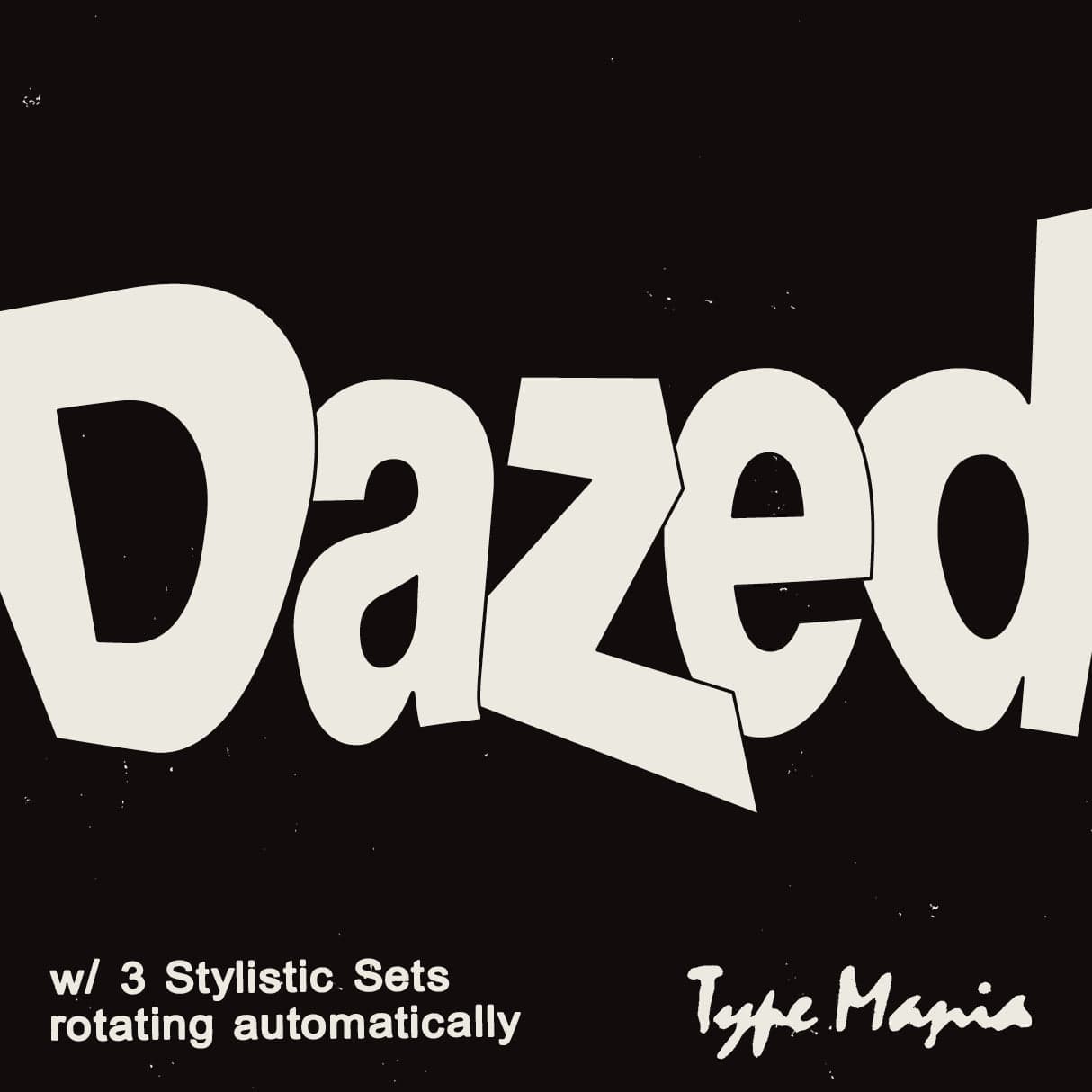
<p><strong>Dazed TM</strong> bends the rules. With its bouncy, freeform feel, it's perfect for offbeat branding or editorial situations. Three stylistic sets rotate automatically when Contextual Alternates is turned on, ensuring every word is fluid and unpredictable. Get dizzy 😵💫</p> <p><strong>Zip includes</strong></p> <ul> <li>OTF file</li> <li>TTF file</li> <li>WOFF2 file</li> </ul> <p><strong>OpenType features</strong></p> <ul> <li>3 stylistic sets</li> <li>The font is programmed to automatically shift between the stylistic sets</li> </ul> <p><strong>Languages</strong></p> <ul> <li>Basic Latin</li> <li>Western European</li> <li>Euro</li> <li>Central European</li> <li>Pan African Latin</li> </ul> <p><em>Graphic Design is Easy (with Type Mania)®</em></p>